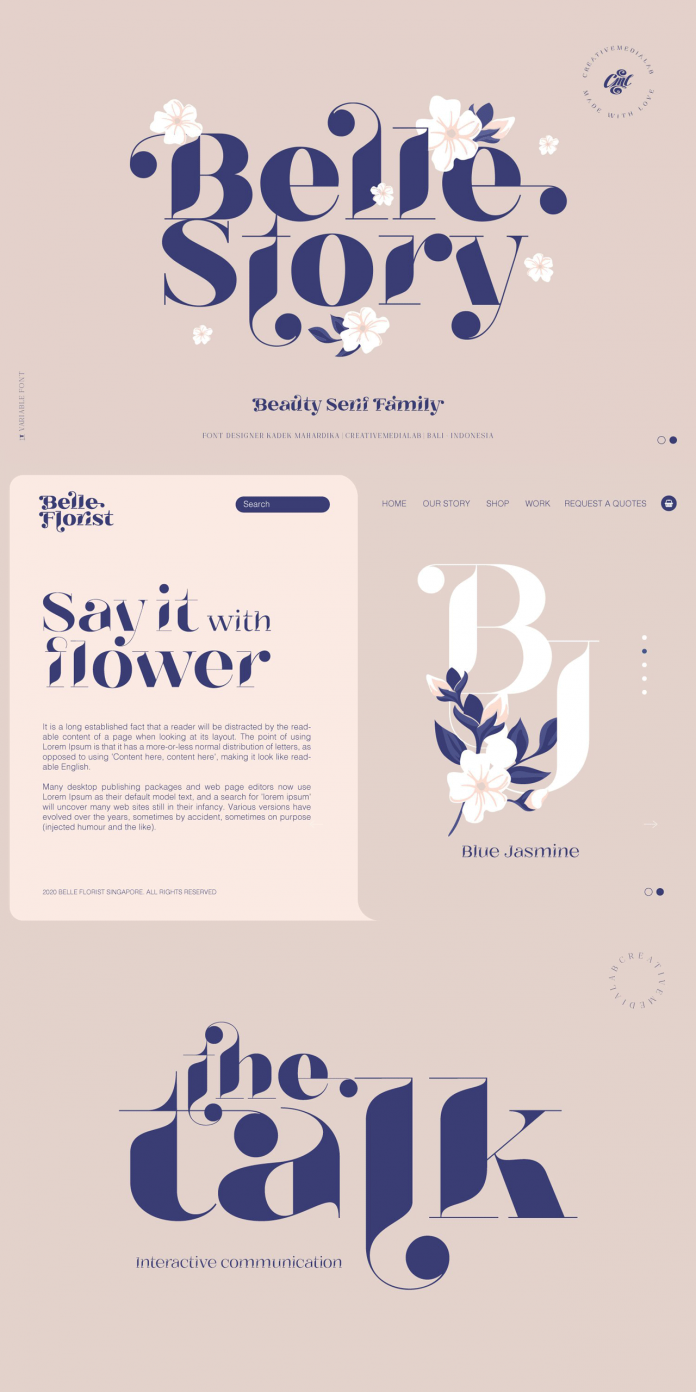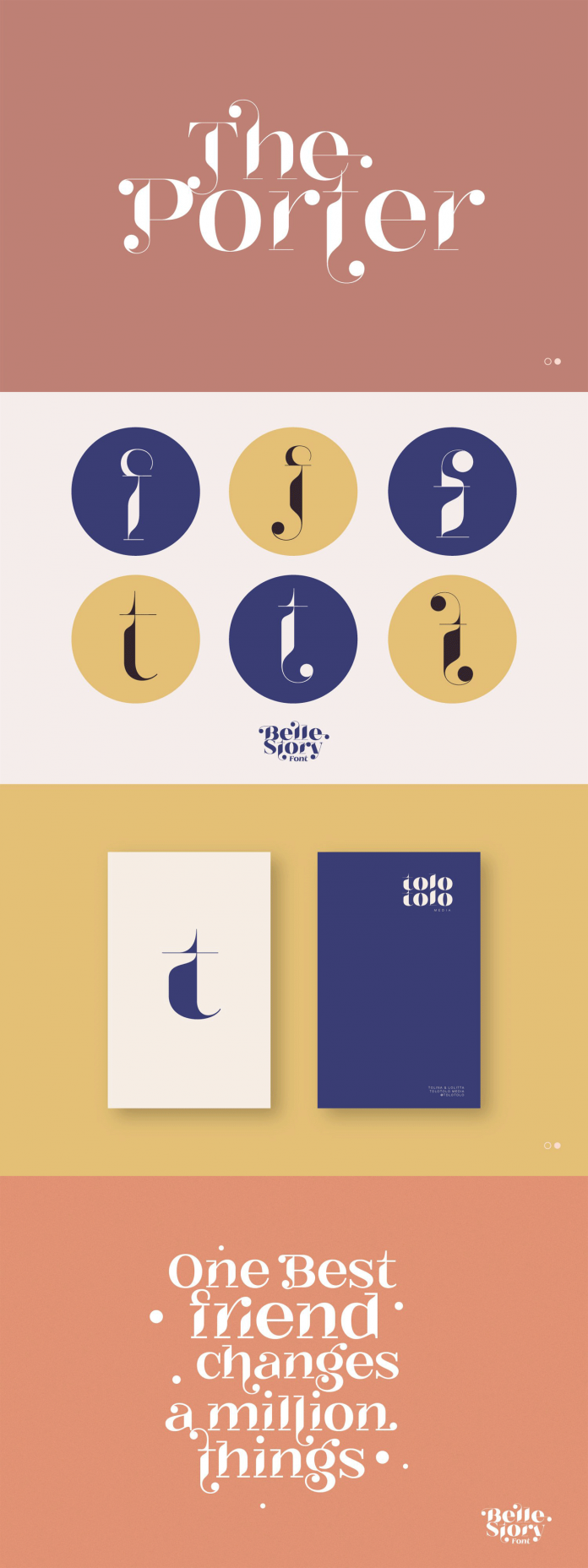
Belle Story, a display serif font family with a lovely vintage feel.
Just look at the beautiful shapes of this vintage-inspired display serif font family. Designed by Kadek Mahardika of foundry Creativemedialab, Belle Story is a hi-contrast typeface consisting of two styles display and regular—each style comes with ten weights ranging from thin to black. The font is characterized by fine lines and smooth curves, which make the typeface a perfect choice for luxury designs as well as classy, high-end branding projects, logotypes, and many more. Belle Story is also equipped with dozens of alternate letters, numbers, currency symbols, and it supports multiple languages. This newly designed font family is currently on sale (only for a limited time). Just check the following links to find the best deal.